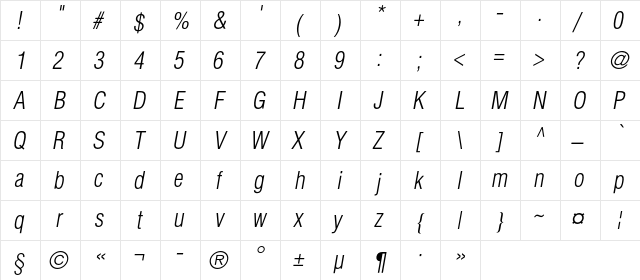
AGLettericaLightCondensedC Italic Font Preview
Design Context for AGLettericaLightCondensedC Typeface
AGLettericaLightCondensedC takes a measured approach to typography — its balanced proportions and neutral character make it a reliable workhorse for both digital and print work. The dynamic lean of this cut emphasises speed and emphasis in any layout. The delicate stroke weight brings airiness and refinement to layouts. Its narrow stance lets it pack a punch even in space-constrained designs.
Pro Tip: Try AGLettericaLightCondensedC for annotation and caption copy alongside an upright companion — the contrast in angle creates a dynamic but ordered typographic system.